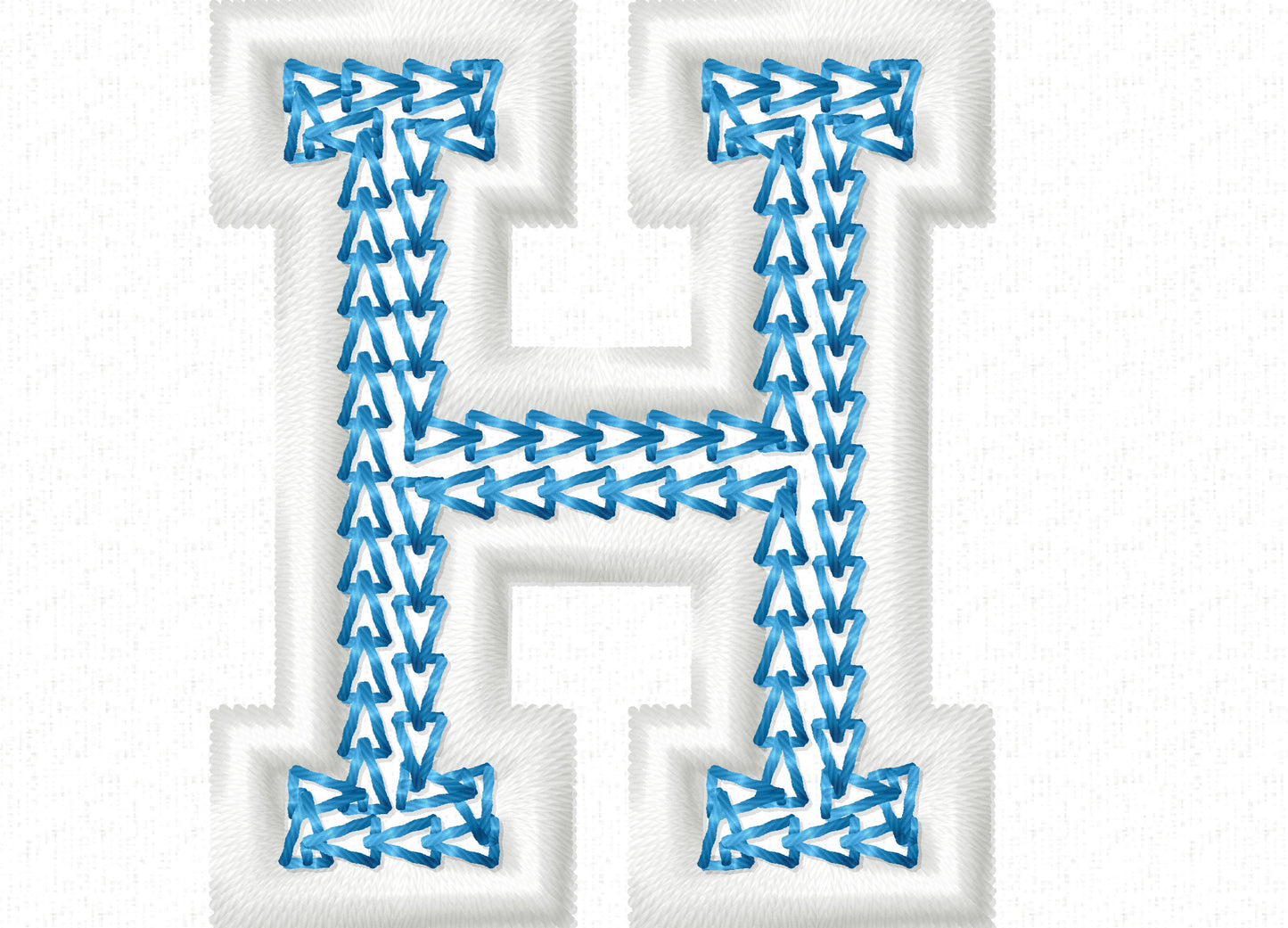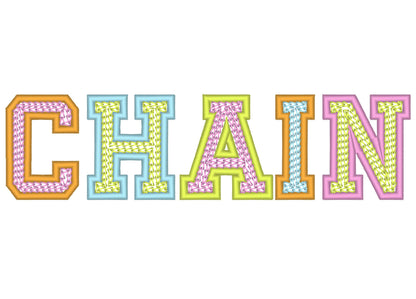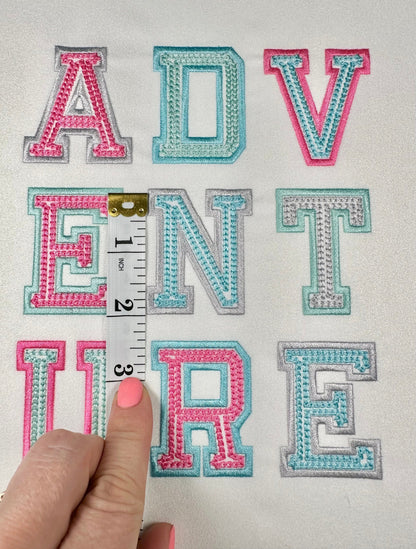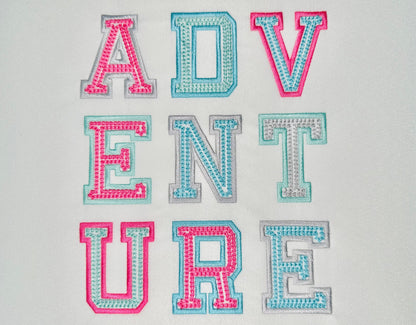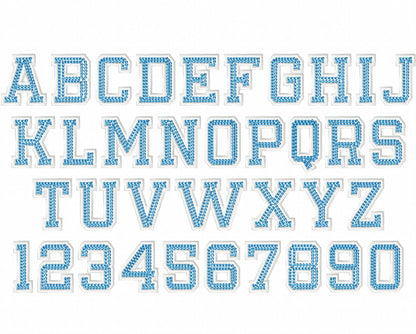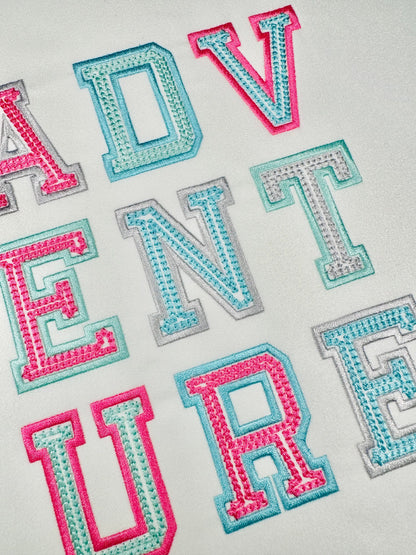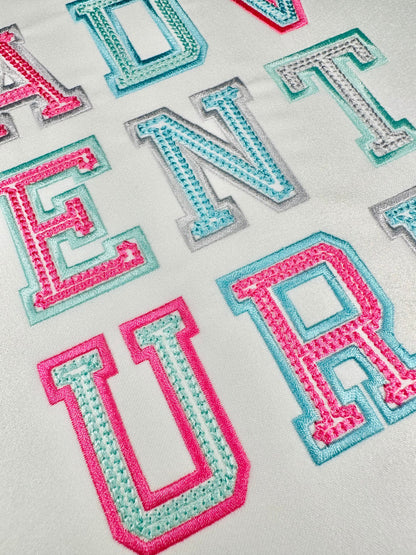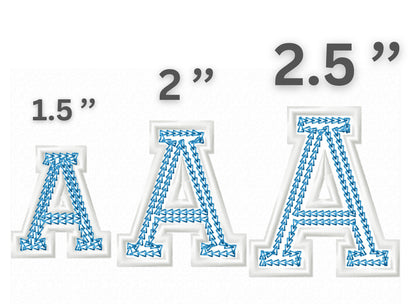
Chain Stitch and Outline Varsity Sport Athletic Font
Included: Uppercase A-Z, Numbers 0-9
A mini varsity font in chain stitch with a satin outline. Great for small team lettering on shirts, caps and bags.
Uppercase letters A to Z and numbers 0 to 9. Three sizes: 1.5, 2 and 2.5 inches.
• Chain stitch varsity font with satin outline
• Uppercase A to Z, numbers 0 to 9
• 3 sizes: 1.5, 2 and 2.5 in